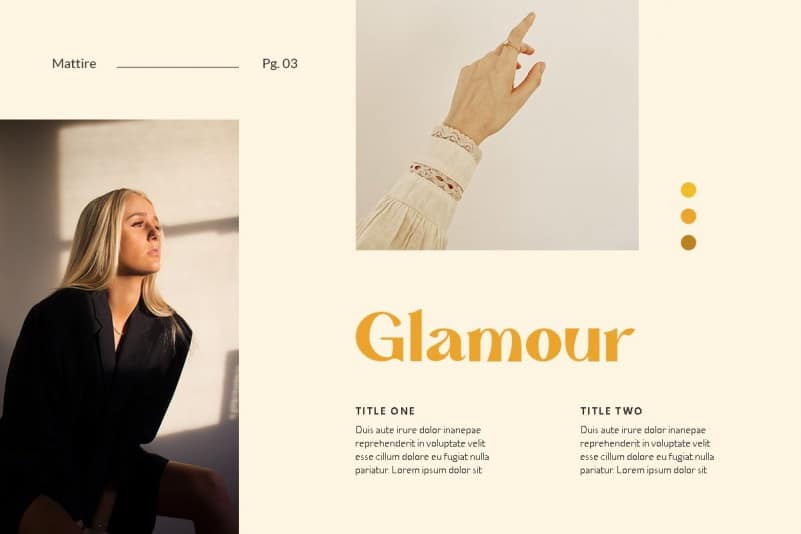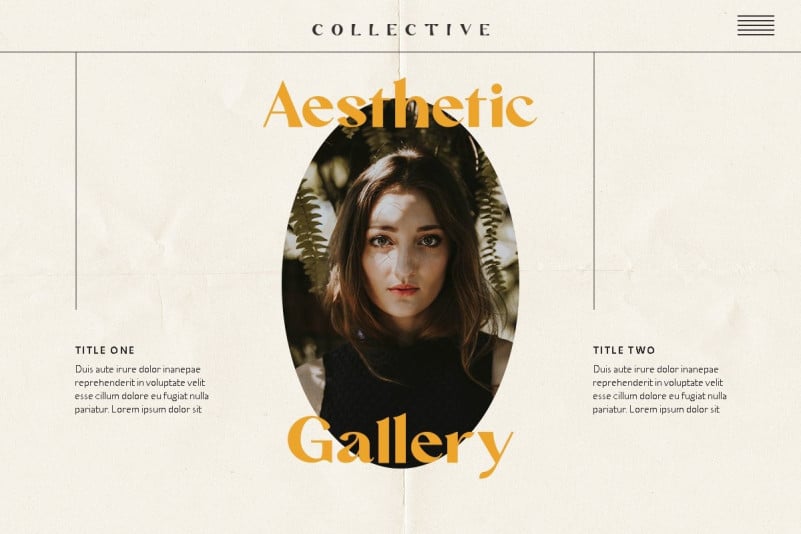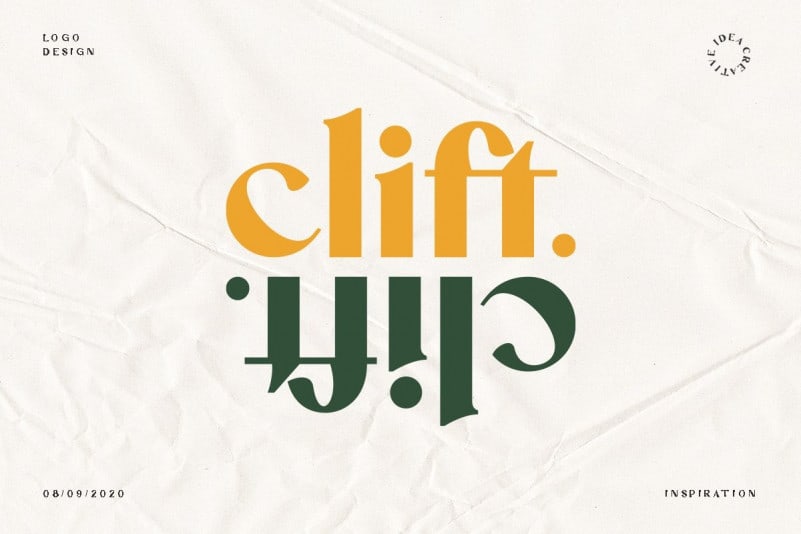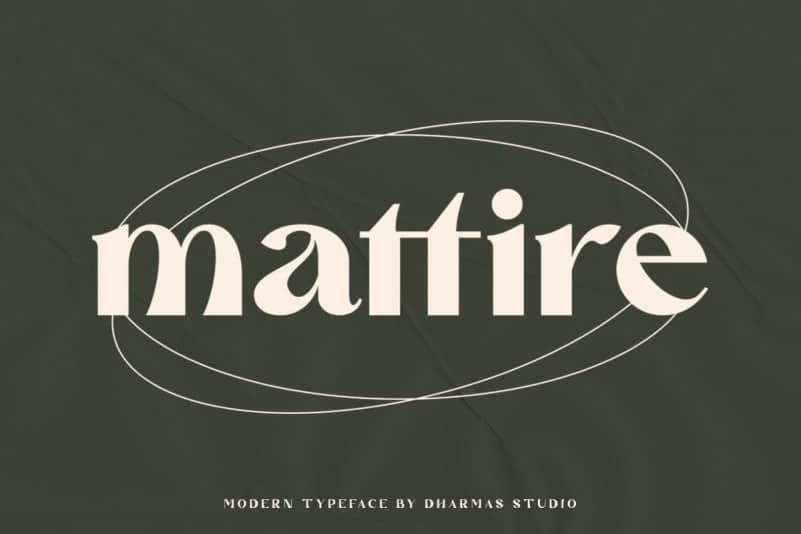
Mattire Serif Font
Mattire Serif Font is a handmade Modern Victorian handlettering, which is combining modern and classic typography with some awesome alternates. It’s designed and shared by dharmas Std. A bold, high contrast font that is perfect for header magazine, web, feminine logo marks & editorial design. It’s a mix between a classic serif and a futuristic sans serif.
Mattire fits perfectly into those modern moodboards. It come with a unique lower and uppercase plus numbers, punctuation & multilingual letters.